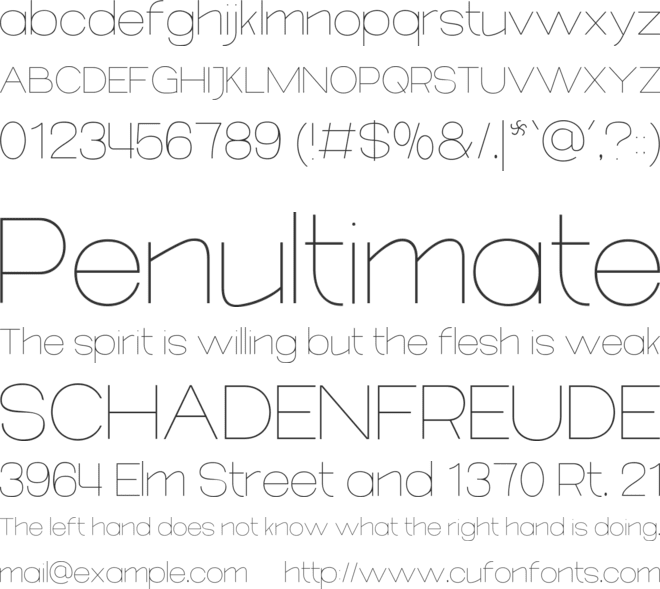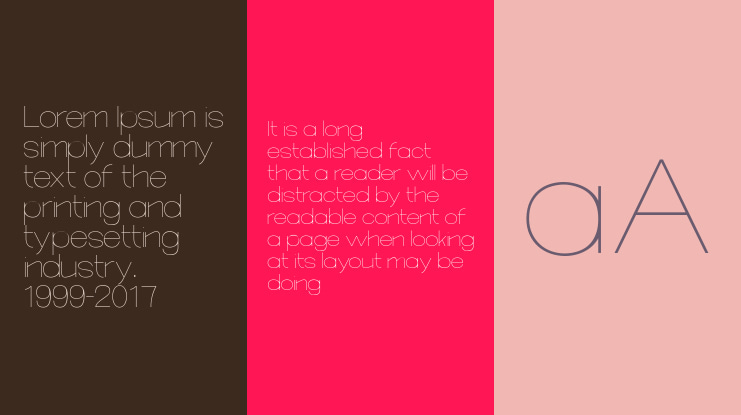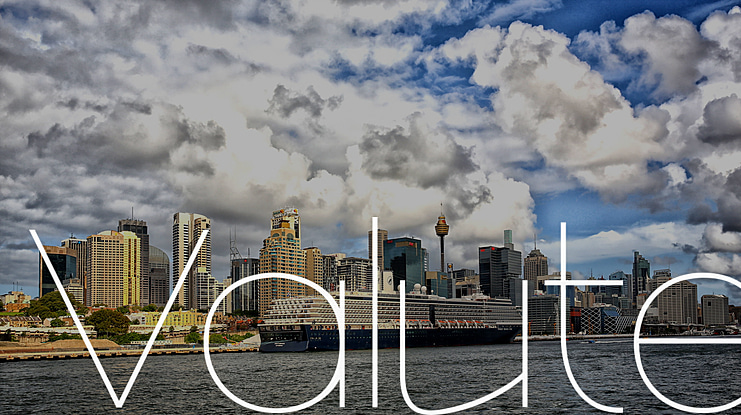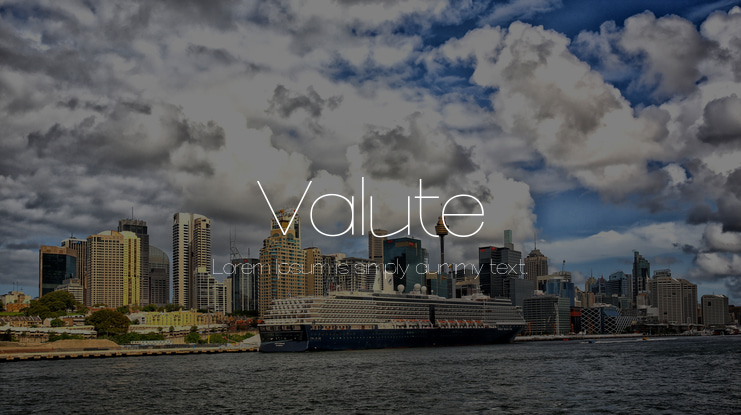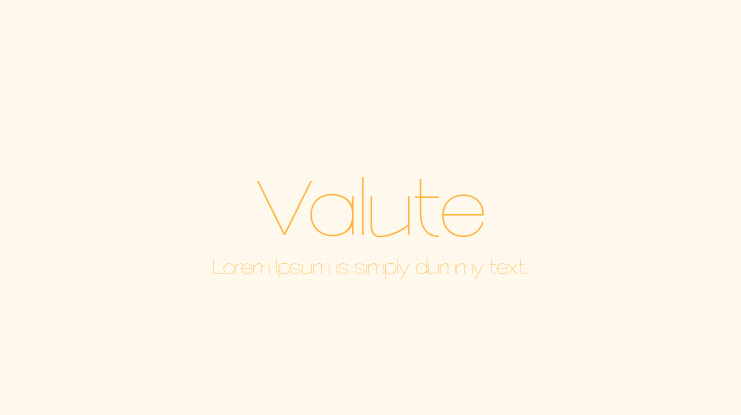
Valute Font
Valute is a custom font with variable typeface, but at first glance it looks very mischievous. Very thincontrasting lines are very legible with heavy use of paragraph text. We made Valute with 9 weights that include ligatures and are multilingual.